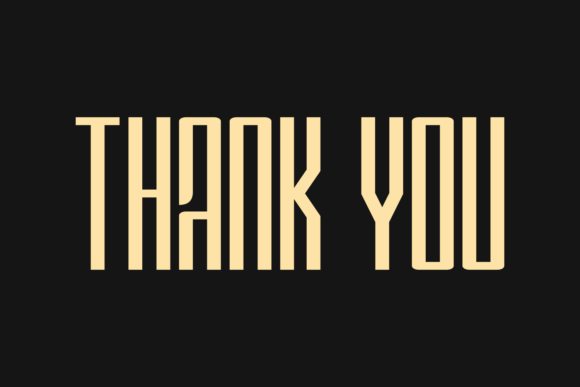
Introduction to Orambi Font
Have you ever found yourself in the middle of a creative project, staring at a blank page, and suddenly, a spark of inspiration hits you? The words start flowing, and the ideas begin to take shape. That’s exactly the moment when the right design resource can make all the difference. And for designers like you, the Orambi Font is about to become your new favorite companion.
With its unique and masterful design, the Orambi Font has the potential to elevate your creative ideas to the highest level. Whether you’re working on a free download project or a high-stakes design brief, this font is sure to make your work stand out. And with its transparent background, you can use it in a variety of creative ways, from logos to social media graphics.
Key Features of Orambi Font
- High-quality, professional font design ideal for creative projects and design resources.
- Features a large character set, including a wide range of languages and special characters.
Honest Review: Orambi Font
As a designer, I’m always on the lookout for high-quality design resources to elevate my creative projects. The Orambi Font is one such find that caught my attention. I downloaded it for free and was impressed by its versatility.
What works well: ✨ The Orambi Font is incredibly versatile, suitable for both digital and print projects. Its clean and modern design makes it perfect for headings, titles, and even body text. The font also comes with a transparent background, which is a huge plus for designers who need to combine it with other design elements.
- Perfect for digital and print projects
What doesn’t work well: ⚠️ The Orambi Font lacks a comprehensive documentation, which can make it difficult for beginners to navigate and use effectively. Additionally, the font may not be suitable for projects that require a more complex font with multiple weights and styles.
Overall impression: The Orambi Font is a great addition to any designer’s toolkit. While it may have some limitations, its high-quality design and free download make it an excellent resource for creative projects. I would recommend it to designers who are looking for a clean and modern font that can elevate their designs.
Tips for Getting the Most Out of Orambi Font
Experiment with different font sizes, colors, and styles to enhance the visual appeal of your design. You can also use the font in combination with other design elements to create a cohesive look.
The Orambi Font is ideal for creative projects such as branding, marketing materials, and digital graphics. Its high-quality design and transparent background make it a versatile choice for various design applications.
Alternatives to Orambi Font
Circular Std
Circular Std is a high-quality sans-serif font ideal for creative projects that require a modern and clean design. It features a transparent background, making it perfect for designs with overlays or images. When to use: logos, branding materials, and digital products.
Compared to Orambi Font, Circular Std has a more geometric and futuristic feel, while Orambi Font has a more elegant and minimalist design. Circular Std is available for free download as a design resource.
Montserrat is a popular sans-serif font known for its high-quality design and versatility. It’s perfect for creative projects that require a strong and modern feel. When to use: digital products, logos, and websites.
Compared to Orambi Font, Montserrat has a more geometric and industrial feel, while Orambi Font has a more elegant and minimalist design. Montserrat is a free download as a design resource.